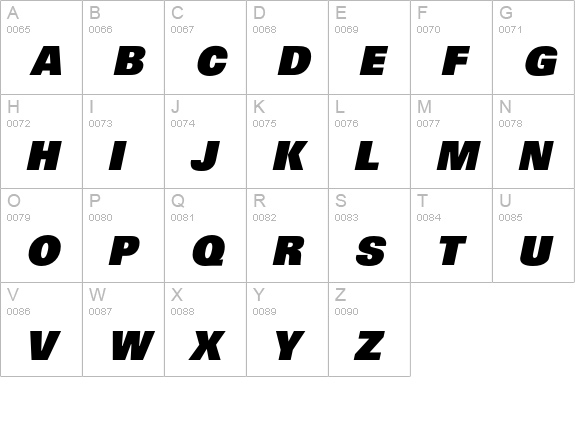
Ultimate-HeavyIta Font Details
Introducing Ultimate-HeavyIta, the font that exudes power and strength in every letter. This bold and imposing typeface is perfect for making a statement and leaving a lasting impression. With its thick strokes and condensed design, Ultimate-HeavyIta commands attention and demands to be noticed. But what sets Ultimate-HeavyIta apart is not just its sheer intensity, but also its versatility. Whether you're designing a poster, creating a logo, or crafting a headline, this font adapts effortlessly to any project, adding a touch of sophistication and professionalism. The clean and precise lines of Ultimate-HeavyIta lend a modern and contemporary feel, while the heavy weight adds a touch of gravitas. Each letter is carefully crafted to ensure legibility, making it ideal for both print and digital applications. And the best part? Ultimate-HeavyIta is available for free! That's right, you can easily download this remarkable font at FontsMarket.com. Whether you're a designer, a student, or simply someone looking to add a bit of flair to their creative endeavors, this font is freely accessible to all. So why wait? Harness the power of Ultimate-HeavyIta and unleash your creativity. Download this impressive font today and take your designs to the next level. Let Ultimate-HeavyIta be the bold statement that sets your work apart from the rest.